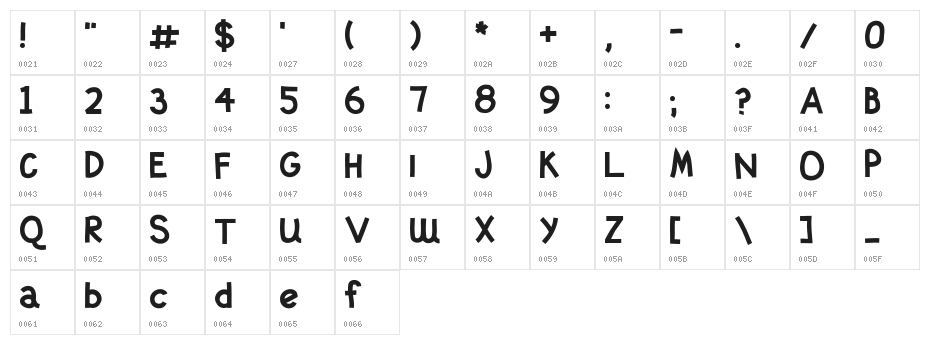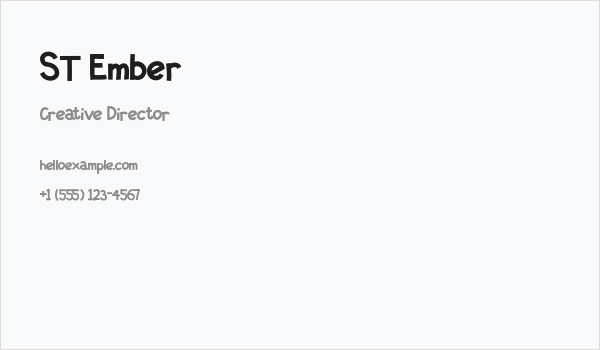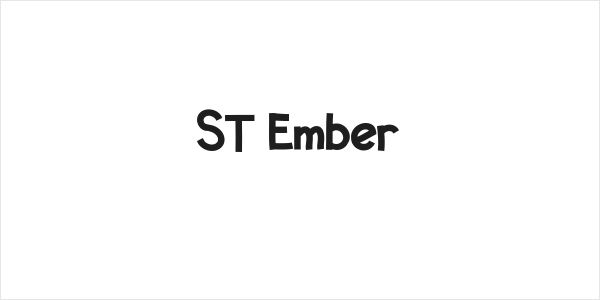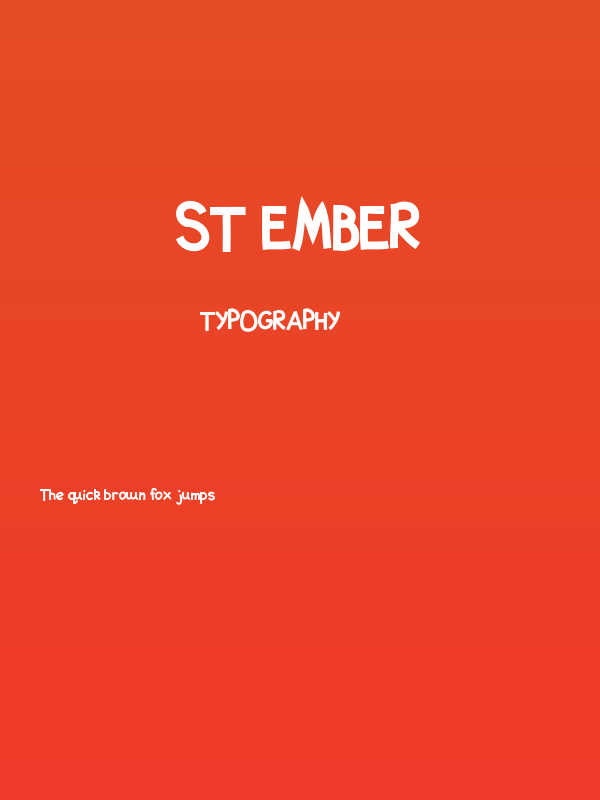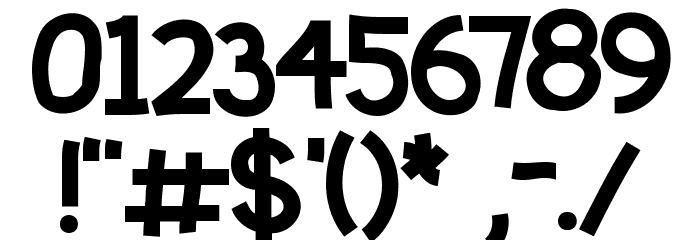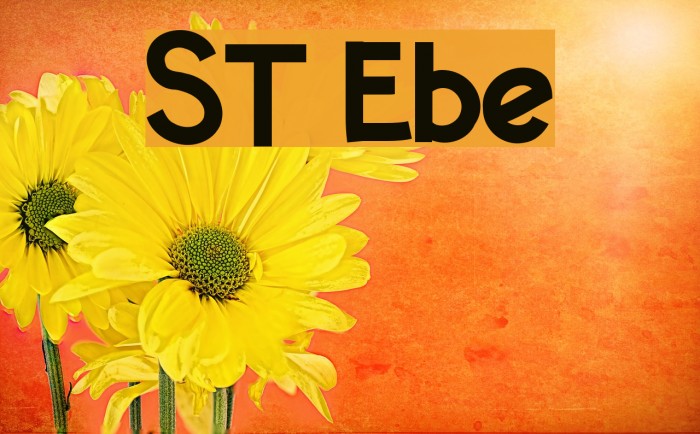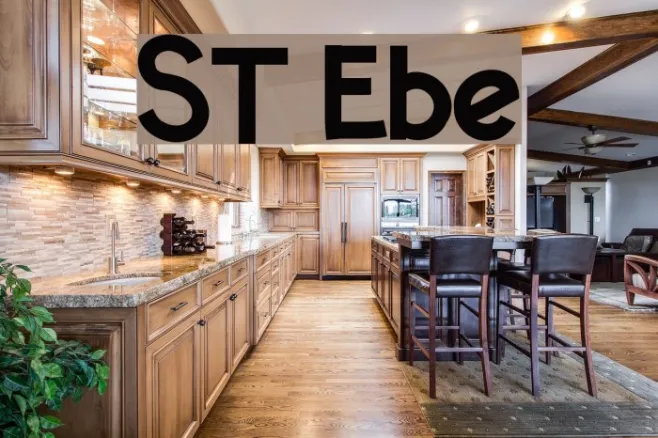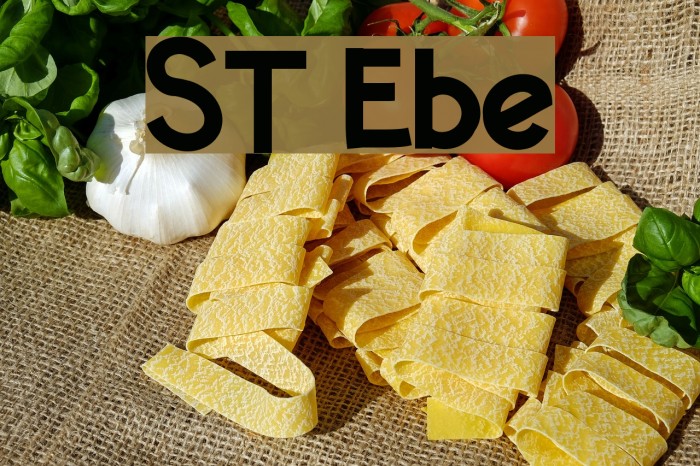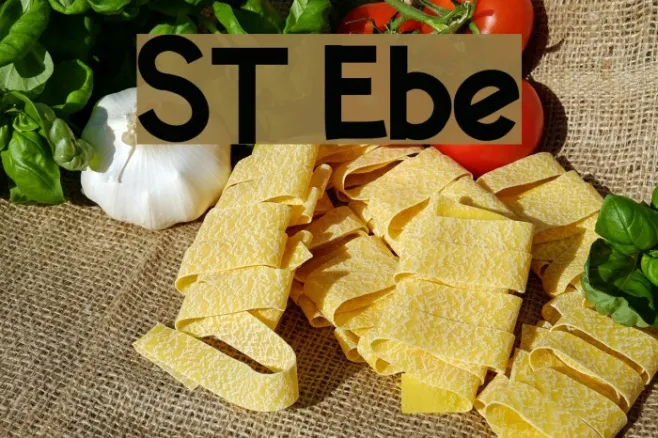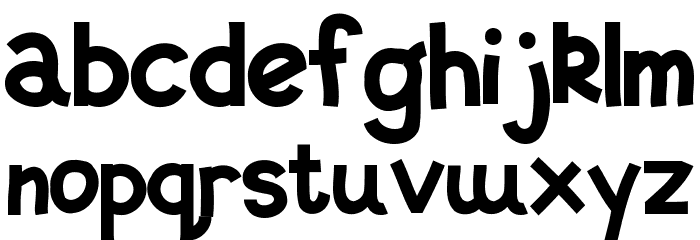
ST Ember Font
ST Ember Description
This font features a playful and bold style with a hand-drawn appearance. The letters are slightly irregular, giving it a whimsical and casual feel. The uppercase letters are tall and commanding, while the lowercase letters maintain a consistent flow with rounded edges. Numbers and special characters are designed to match the overall quirky aesthetic, making them stand out in a fun way. The font's unique character shapes and bold presence make it suitable for creative projects that require a touch of personality.
| Overall Style | Playful, Whimsical |
| Proposed Projects | Ideal for children's books, comic strips, playful branding, and creative posters. |